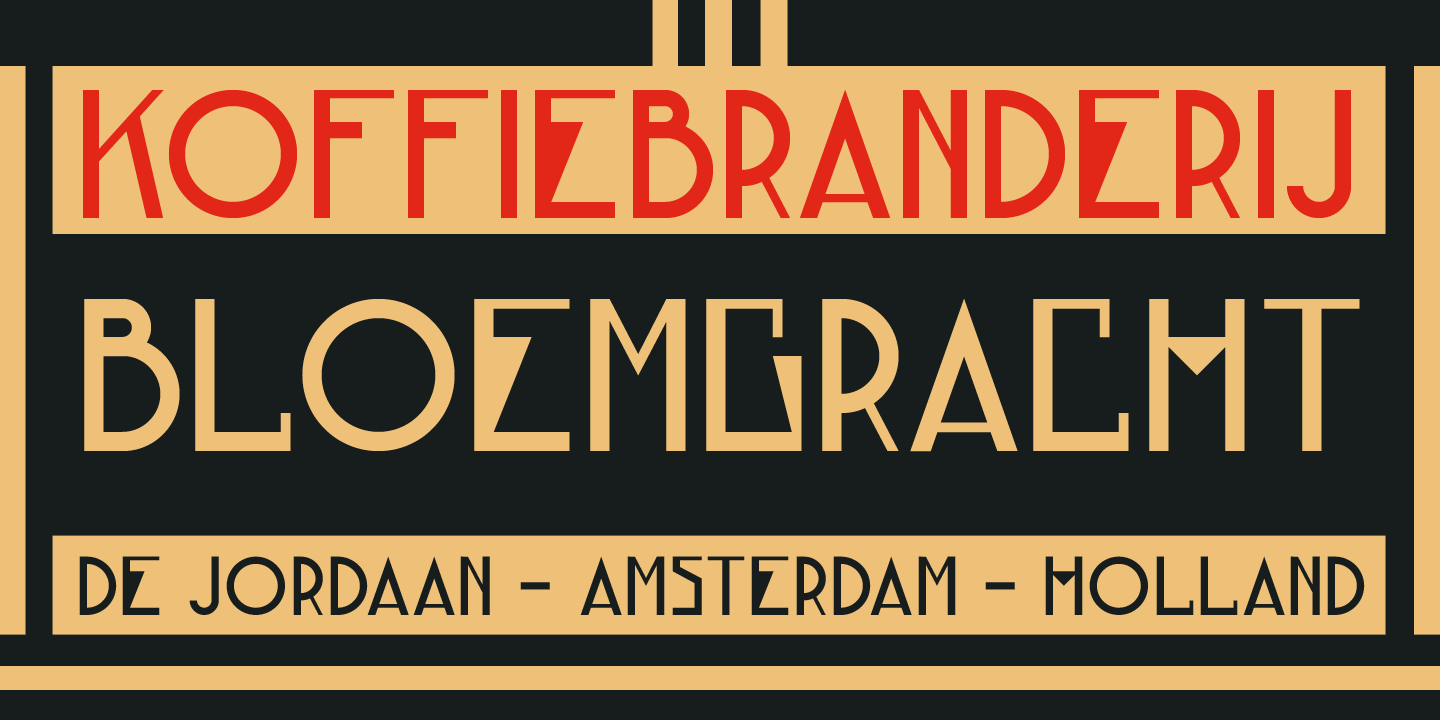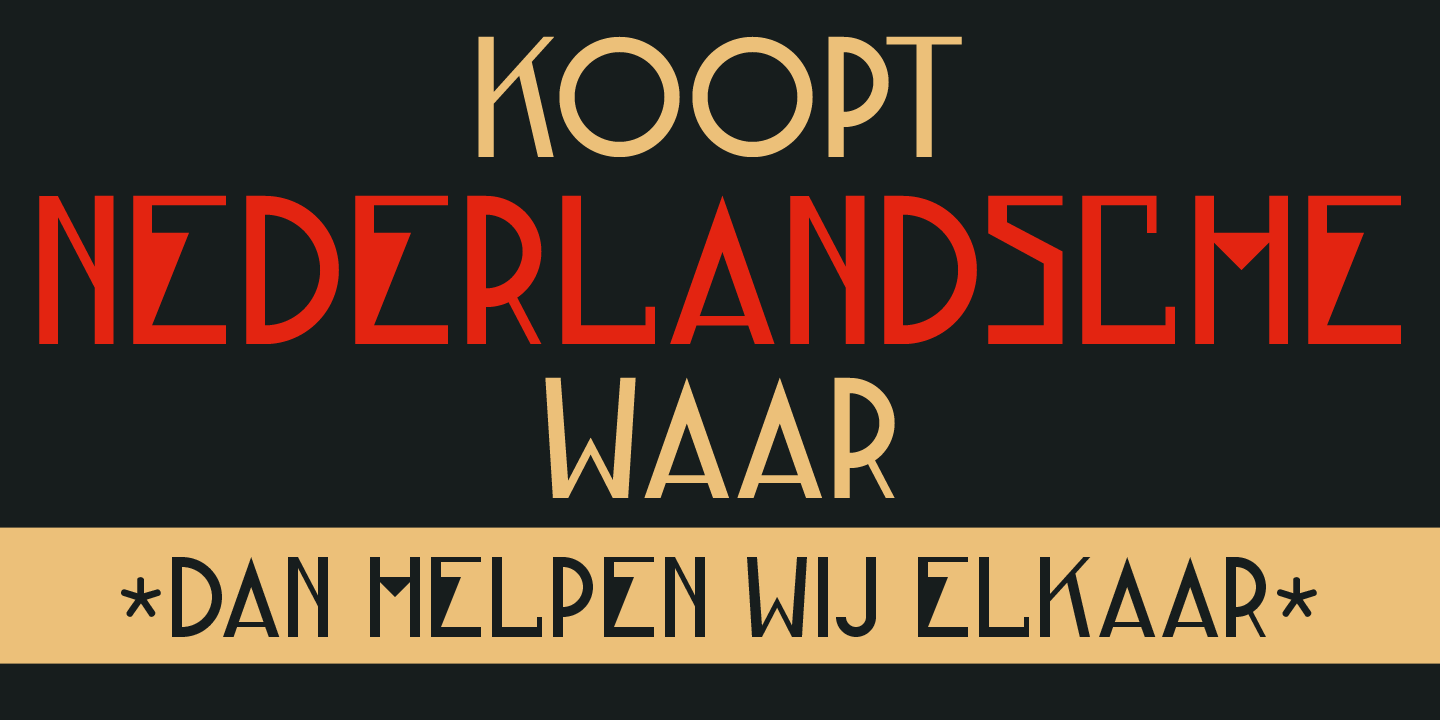
Bloemgracht
Font Family by Hanoded
In the old Amsterdam neighborhood of 'De Jordaan', you will find a canal called Bloemgracht (Flower Canal). For many years, a coffee store called Schildmeijer could be found here. Their paper coffee bags and advertisements sported a hand made font which I have tried to recreate and the result is Bloemgracht typeface. It is an all caps art deco font, quite angular, but very legible and distinct. Bloemgracht comes with extensive language support.